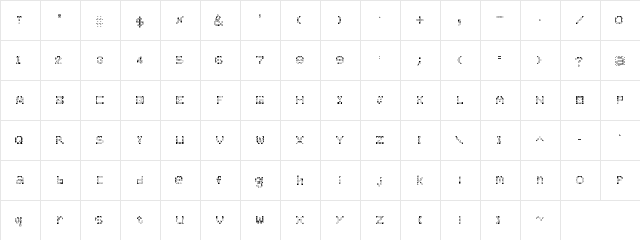
KongPanStye Regular Font Preview
KongPanStye Regular
KongPanStye Regular Font Details
| Designer | bobobeau |
Design Context for KongPanStye Typeface
KongPanStye is a composed and adaptable typeface that performs quietly and consistently across a wide range of design contexts.